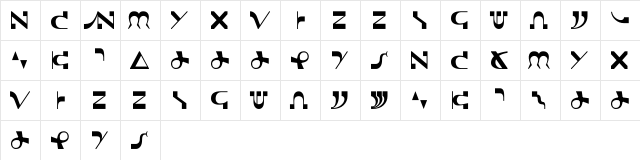
PVEnochian Regular
Design Context for PVEnochian Typeface
PVEnochian is a composed and adaptable typeface that performs quietly and consistently across a wide range of design contexts.